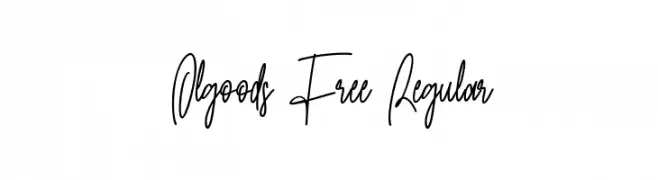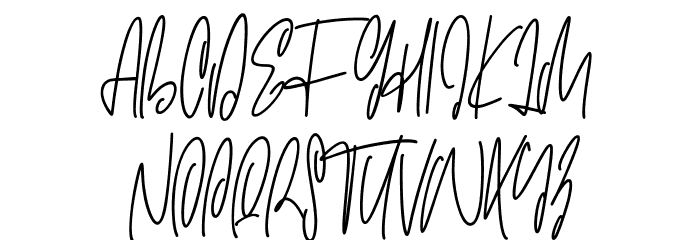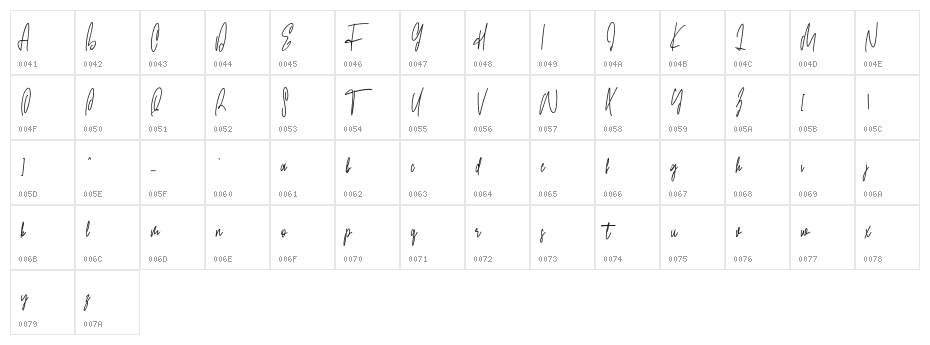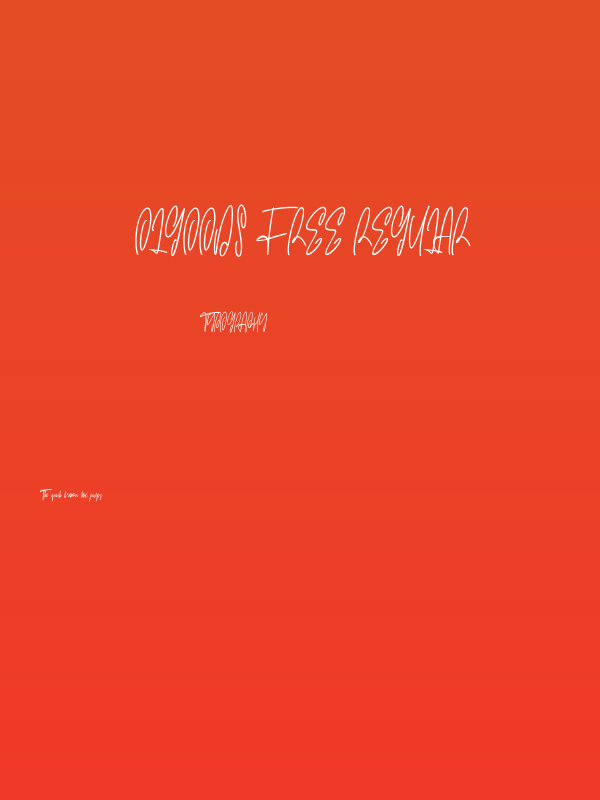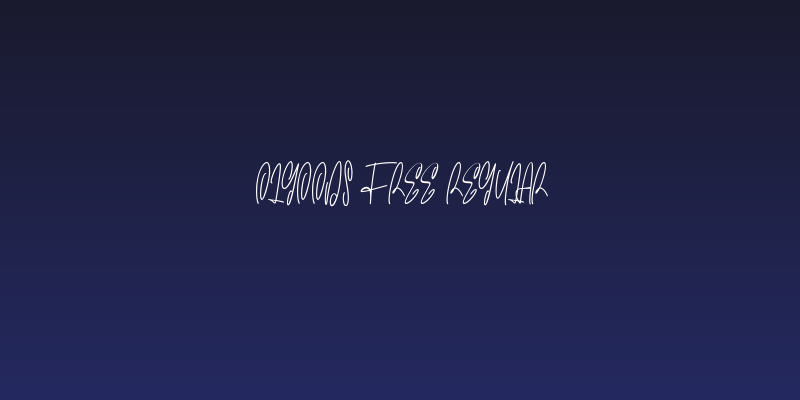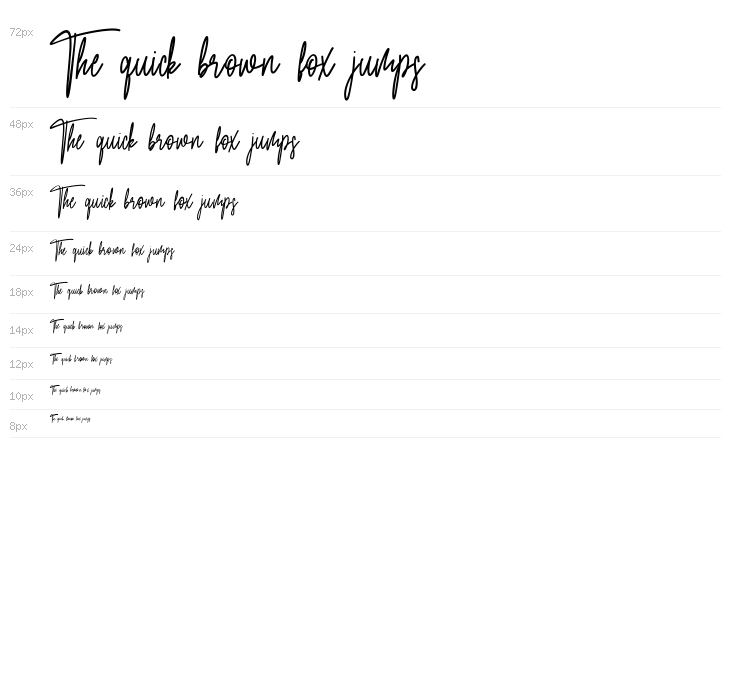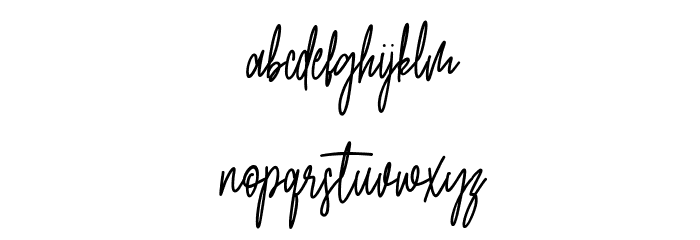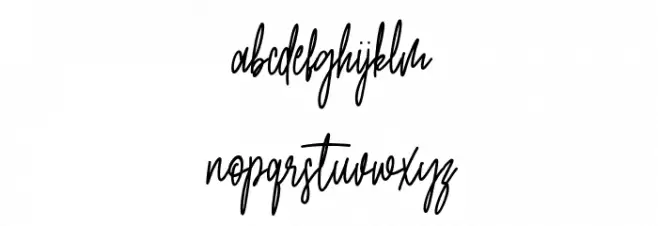
Olgoods Free Regular Font
Olgoods Free Regular Description
A handwritten script font with tall, narrow letterforms and fluid, connected strokes, giving it an expressive and personal feel. The lines are thin with consistent stroke width, and the characters have high ascenders and deep descenders.
| Width | Condensed |
| Overall Style | Decorative, Modern, Personal |
| Use Case | Logos, Headlines, Invitations, Social media |
| Proposed Projects | Invitations, greeting cards, personal branding, quotes, social media graphics. |